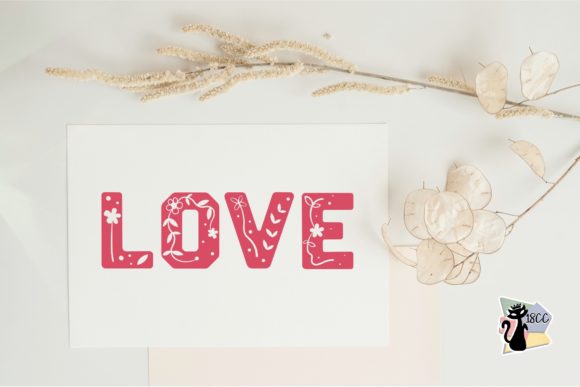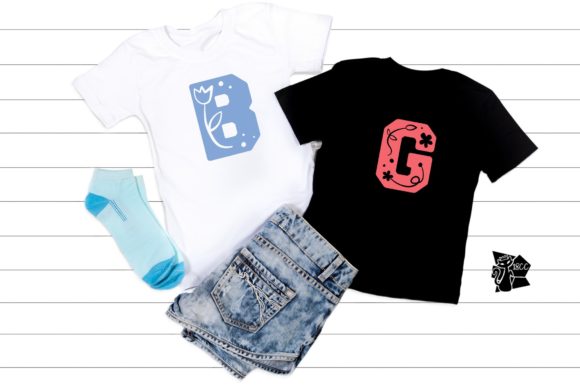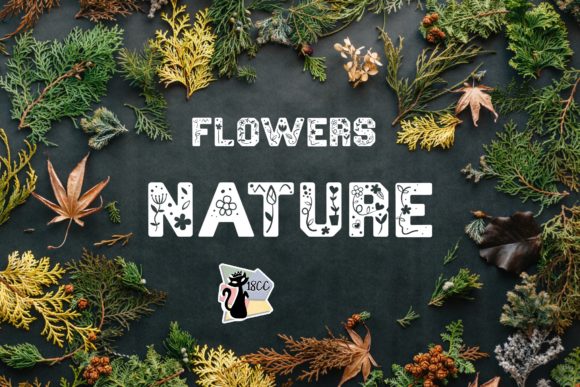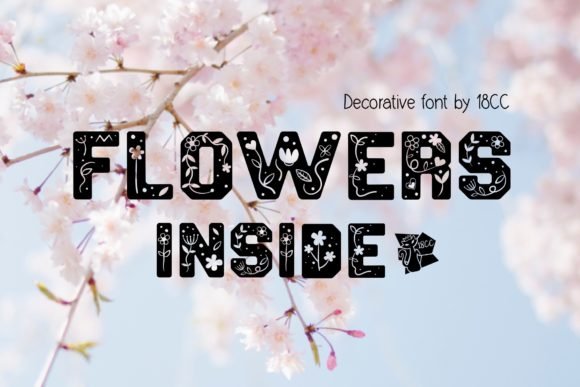
Introduction to Flowers Inside Font
Flowers Inside is a lovely and jolly decorative font.
This font is the perfect fit for all of your logos, branding, social media, crafty DIY projects, and much more .
Flowers Inside Font offers exceptional quality and versatility, making it a valuable addition to your design toolkit. Whether you’re creating for personal projects or commercial use, Flowers Inside Font delivers professional results.